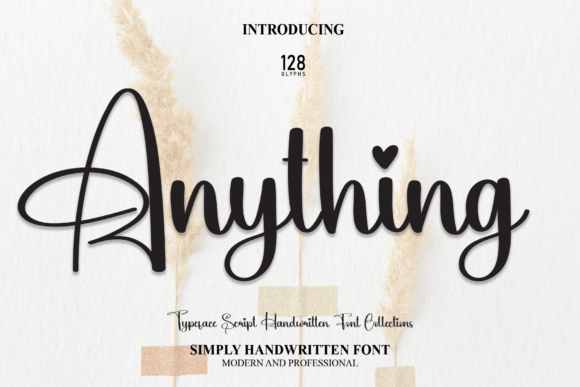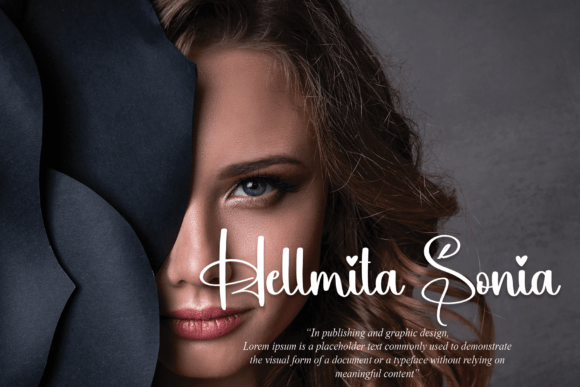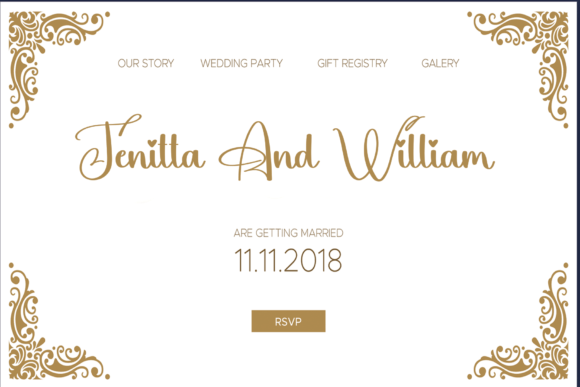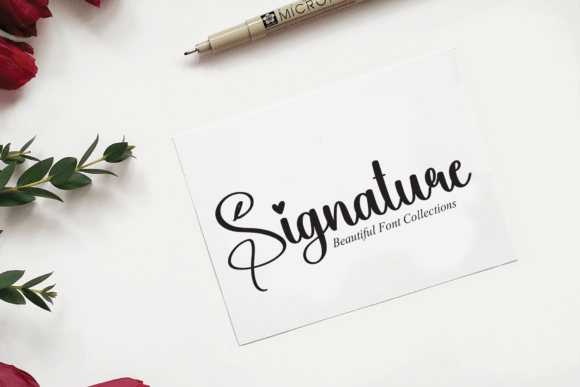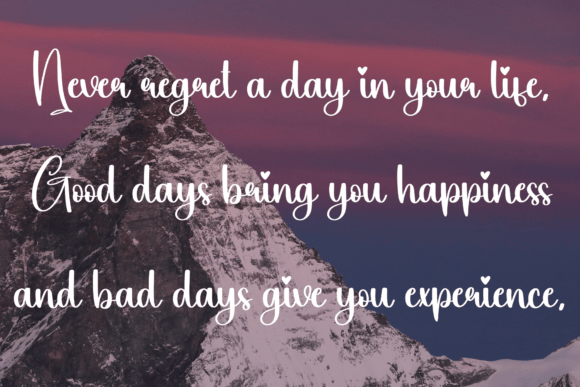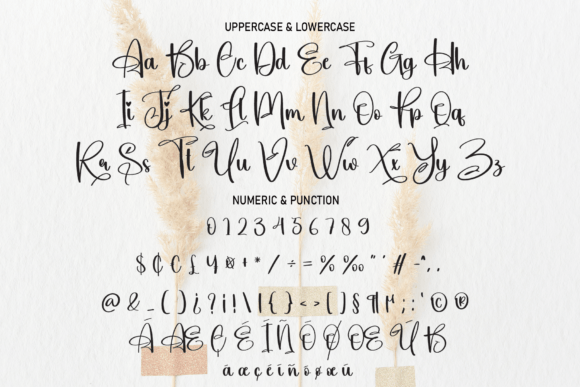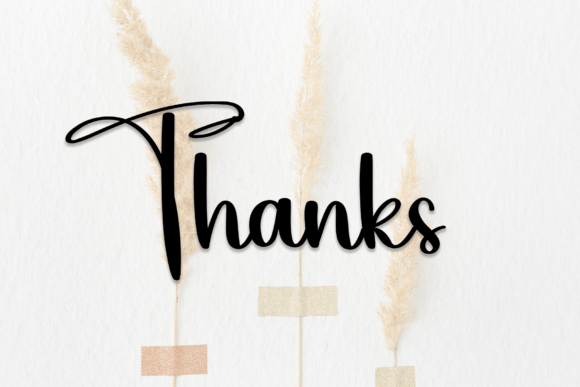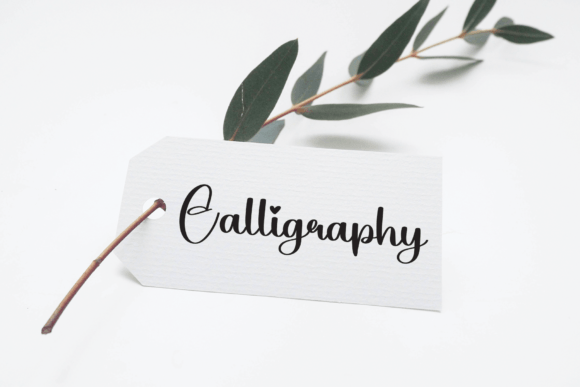
Anything Font
About Anything Font
“Anything: Elevate Your Designs with Timeless Elegance
Introducing Anything, a font that transcends the ordinary, adding a touch of sophistication and style to your creative endeavors. More than just letters on a page, Anything is a statement, a bold declaration of your unique aesthetic. With its elegant, classy, and modern appearance, this font becomes the brushstroke that adds personality and charm to your latest art project.
Anything opens the door to a world of creative possibilities. Its exquisite typographic design makes it the perfect choice for a wide range of projects, allowing you to infuse elegance into every detail. Whether you’re working on logos, branding materials, invitations, stationery, wedding designs, social media posts, advertisements, product packaging, labels, or photography watermarks, Anything complements your vision with its handwriting-inspired taste.
Imagine your brand’s logo adorned with Anything’s stylish curves, or your wedding invitations graced with its graceful script. Picture your social media posts exuding class and sophistication, capturing the essence of your message effortlessly. Anything isn’t just a font; it’s a creative tool that transforms your ideas into visually stunning realities.
One of Anything’s defining features is its ability to create a lasting impression. Its refined design evokes a sense of timeless beauty, making your projects stand out in a crowded visual landscape. Whether you’re announcing a special event or designing product packaging, Anything lends an air of exclusivity, leaving a mark on your audience’s memory.
Furthermore, Anything is more than just a typographic choice; it’s a design philosophy. It understands the subtleties of your creative vision and enhances them with its subtle yet impactful presence. Its elegant strokes and meticulously crafted letters reflect your commitment to quality, ensuring that your work exudes professionalism and craftsmanship.
Anything doesn’t just adorn your projects; it elevates them. It transforms ordinary designs into extraordinary creations, capturing attention and sparking curiosity. With Anything by your side, your work becomes a visual symphony, harmonizing creativity, elegance, and innovation.
In a world where first impressions matter, Anything helps you make a statement. It ensures that your message is conveyed with clarity and finesse, leaving a lasting impact on your audience. Whether you’re a seasoned designer or an aspiring creative, Anything is your trusted partner, guiding you towards design excellence.
So, why settle for the mundane when you can embrace the extraordinary? Elevate your projects, add a touch of elegance, and make a lasting impression with Anything. Let your creativity flourish, and watch as Anything transforms your ideas into masterpieces that leave an indelible mark on the world.”